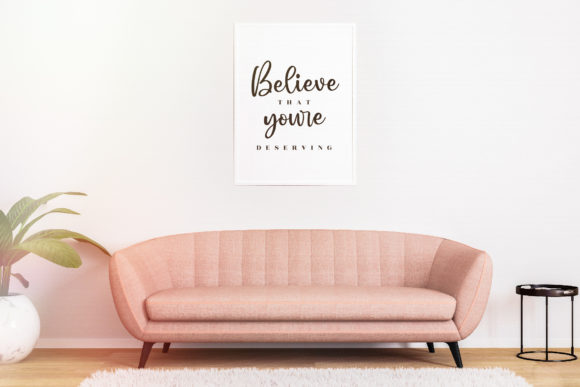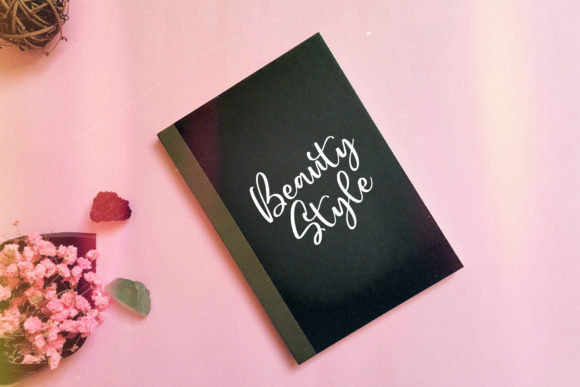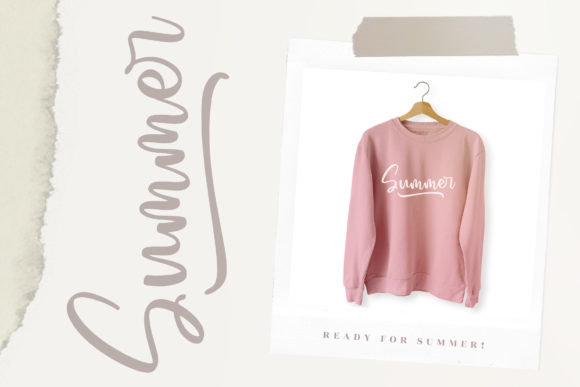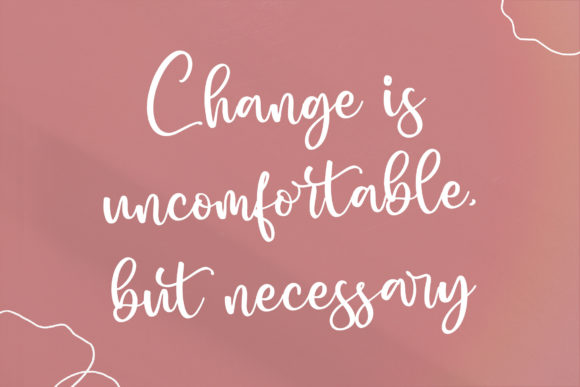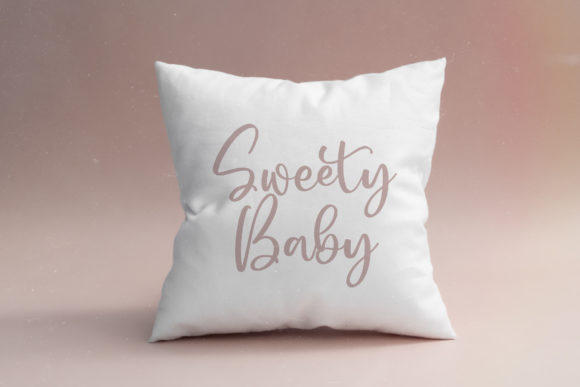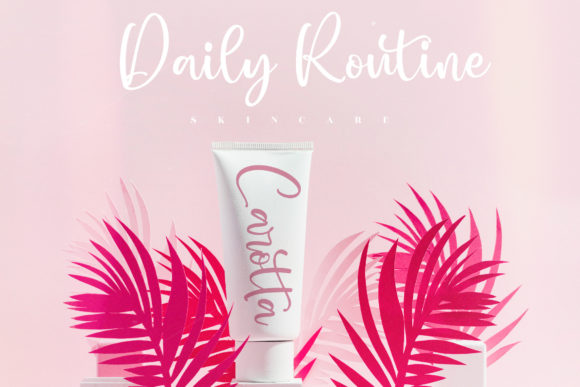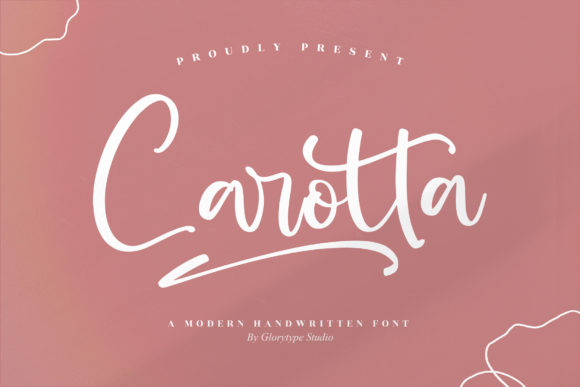
Introducing Carotta Font: The Modern Handwritten Script for Your Creative Projects
Are you a designer or crafter looking for a beautiful and modern handwritten font to elevate your projects? Look no further than Carotta Font! This stunning script font is perfect for a wide range of applications, from logos and branding to homeware designs, product packaging, and more.
What is Carotta Font?
Carotta Font is a modern handwritten script font that exudes elegance and sophistication. Its flowing lines and delicate curves make it perfect for adding a touch of personality to any project. Whether you’re working on a logo, a poster, or a product design, Carotta Font is sure to impress.
What Can I Use Carotta Font For?
Carotta Font is incredibly versatile and can be used for a wide range of projects, including:
- Logos and branding projects: Create a lasting impression with a custom logo that showcases your brand’s personality.
- Homeware designs: Add a touch of elegance to your home decor with custom designs featuring Carotta Font.
- Product packaging: Stand out on store shelves with eye-catching packaging that features Carotta Font.
- Mugs and ceramics: Create personalized gifts or promotional items with Carotta Font.
- Quotes and posters: Add a touch of inspiration to your walls with beautifully designed quotes and posters.
- Shopping bags and t-shirts: Create custom apparel and accessories that showcase your brand’s style.
- Book covers and name cards: Add a touch of sophistication to your book covers and name cards.
- Invitation cards and greeting cards: Create personalized invitations and cards that feature Carotta Font.
- Labels and photography: Use Carotta Font to add a touch of elegance to your labels and photography.
- Watermarks and special events: Create custom watermarks and designs for special events, such as weddings and parties.
Why Choose Carotta Font?
So why choose Carotta Font for your projects? Here are just a few reasons:
- Unique and eye-catching: Carotta Font is a one-of-a-kind script font that will help your projects stand out from the crowd.
- Elegant and sophisticated: Carotta Font exudes elegance and sophistication, making it perfect for high-end projects.
- Versatile: Carotta Font can be used for a wide range of projects, from logos and branding to homeware designs and product packaging.
- Easy to read: Despite its elegant curves and flowing lines, Carotta Font is easy to read and understand.
Tips for Using Carotta Font
Here are a few tips for getting the most out of Carotta Font:
- Use it sparingly: Carotta Font is a statement font, so use it sparingly to make a lasting impression.
- Experiment with colors: Carotta Font looks stunning in a range of colors, so don’t be afraid to experiment and find the perfect hue for your project.
- Pair it with other fonts: Carotta Font pairs beautifully with other fonts, so try combining it with a bold font for a striking contrast.
In conclusion, Carotta Font is a stunning modern handwritten script font that is perfect for designers and crafters looking to add a touch of elegance and sophistication to their projects. With its unique and eye-catching design, Carotta Font is sure to impress and leave a lasting impression. So why wait? Download Carotta Font today and start creating beautiful projects that showcase your creativity and style!